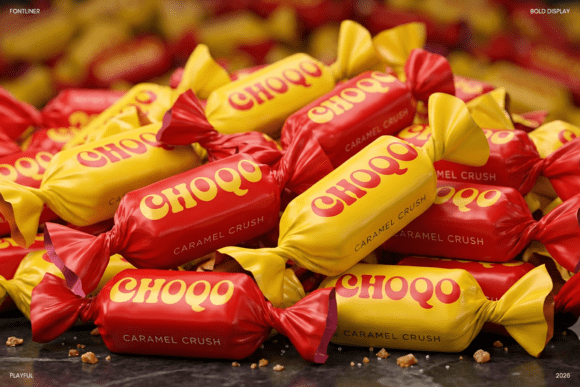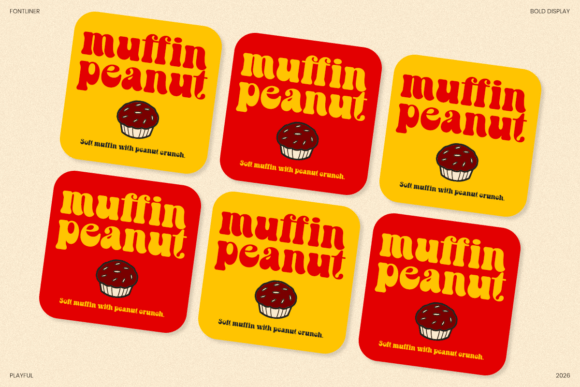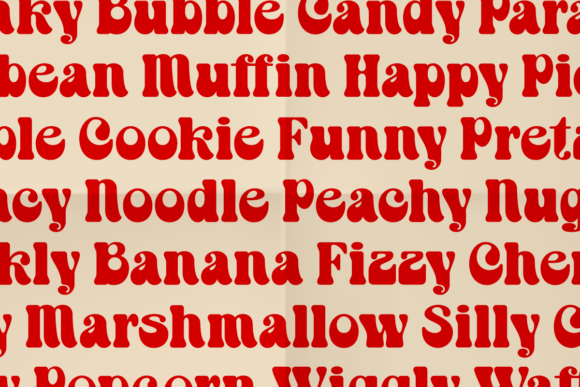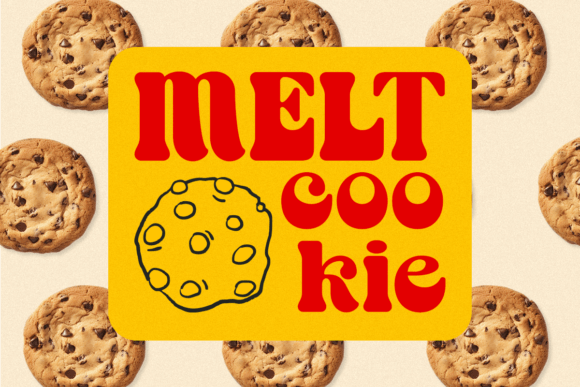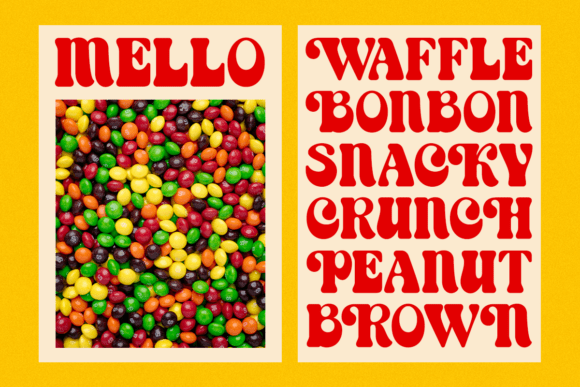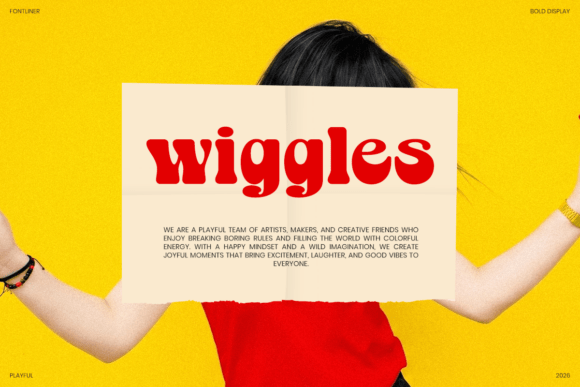
Meet Bropie: The Bold Display Serif Typeface with Retro Charm
In the world of typography, a new font has emerged that embodies the perfect blend of playfulness, confidence, and retro charm. Say hello to Bropie, a bold display serif typeface that is sure to make a statement in any design project. Inspired by vintage editorial headlines, nostalgic packaging, and expressive branding from the golden era of print, Bropie brings a distinctive personality to the table with its chunky curves, dramatic serifs, and eye-catching letterforms.
The Inspiration Behind Bropie
Bropie’s design is rooted in the rich history of print media, where typography played a crucial role in capturing the attention of readers. The font’s creator drew inspiration from the iconic typography of the past, reimagining the classic serif typefaces with a modern twist. The result is a font that exudes a sense of nostalgia while still feeling fresh and contemporary.
Key Features of Bropie
So, what sets Bropie apart from other typefaces? Here are some of its key features:
- Chunky Curves: Bropie’s curves are bold and rounded, giving the font a friendly and approachable feel.
- Dramatic Serifs: The font’s serifs are long and expressive, adding a touch of elegance and sophistication.
- Eye-Catching Letterforms: Each letterform in Bropie is carefully crafted to be visually striking, making it perfect for headlines and titles.
Use Cases for Bropie
Bropie is a versatile typeface that can be used in a wide range of design projects, including:
- Branding Projects: Bropie is perfect for creating bold and memorable brand identities.
- Logo Design: The font’s unique personality makes it an excellent choice for logos that need to stand out.
- Food Packaging: Bropie’s retro charm is well-suited for food packaging designs that require a playful and eye-catching typographic voice.
- Café Branding: The font’s warm and inviting feel makes it perfect for café branding and signage.
- Poster Headlines: Bropie’s bold and expressive letterforms make it ideal for poster headlines that need to grab attention.
- Editorial Layouts: The font’s classic serif design makes it suitable for editorial layouts that require a touch of sophistication.
- Product Packaging: Bropie’s unique personality makes it an excellent choice for product packaging designs that require a bold and eye-catching typographic voice.
- Social Media Campaigns: The font’s versatility makes it perfect for social media campaigns that require a bold and attention-grabbing typographic voice.
- Merchandise: Bropie’s playful and retro charm makes it well-suited for merchandise designs that require a fun and eye-catching typographic voice.
- Album Covers: The font’s bold and expressive letterforms make it ideal for album covers that require a bold and attention-grabbing typographic voice.
- Bold Advertising Visuals: Bropie’s unique personality makes it perfect for bold advertising visuals that require a strong and eye-catching typographic voice.
Why Bropie is Perfect for Lifestyle Brands and Creative Agencies
Bropie’s retro-modern personality makes it especially effective for lifestyle brands, creative agencies, fashion campaigns, and playful product identities seeking a memorable typographic voice. The font’s unique blend of playfulness and sophistication makes it perfect for brands that want to stand out from the crowd and make a statement.
In conclusion, Bropie is a bold display serif typeface that radiates playful confidence and retro charm. With its chunky curves, dramatic serifs, and eye-catching letterforms, Bropie is the perfect choice for designers and crafters looking to add a touch of nostalgia and sophistication to their designs. Whether you’re crafting a nostalgic brand identity or building bold contemporary visuals, Bropie is the perfect typographic voice to help you make a statement.